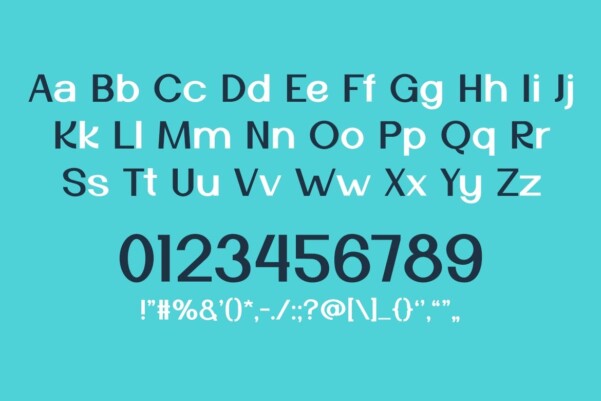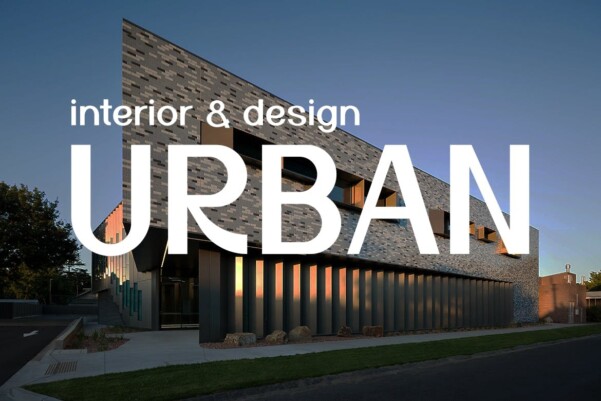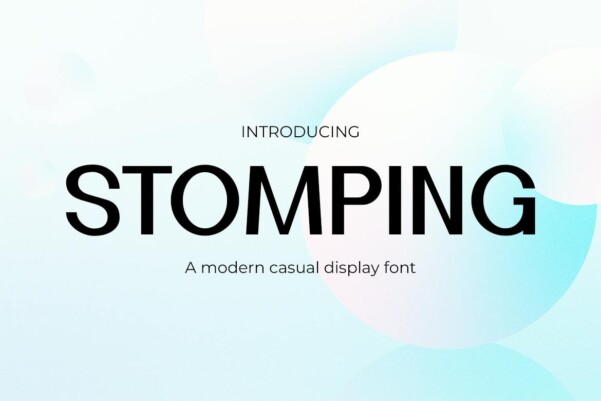
Stomping Font
Stomping Font – Versatile Elegance in Every Curve, a versatile sans serif font is perfect for fashion, logos, quotes, invitations, posters, greeting cards, packaging, branding, wedding quotes, cover albums, business cards, postcards, and more.